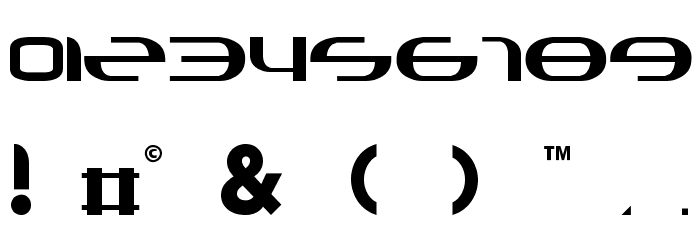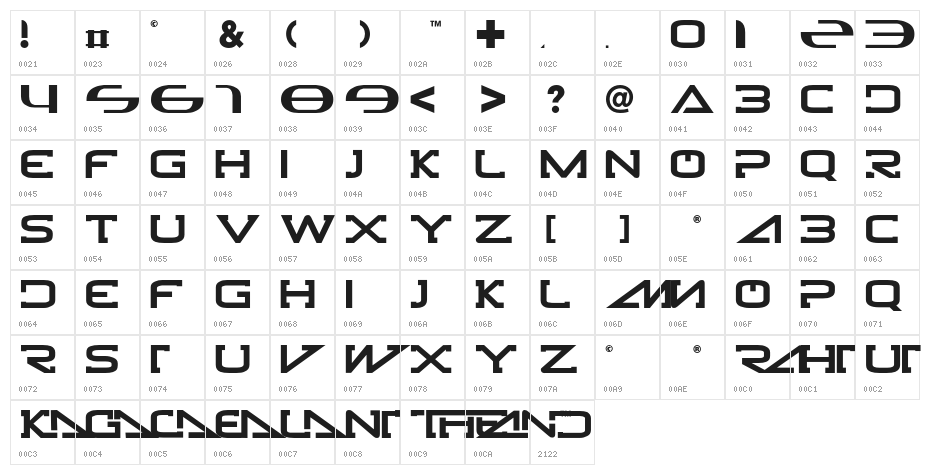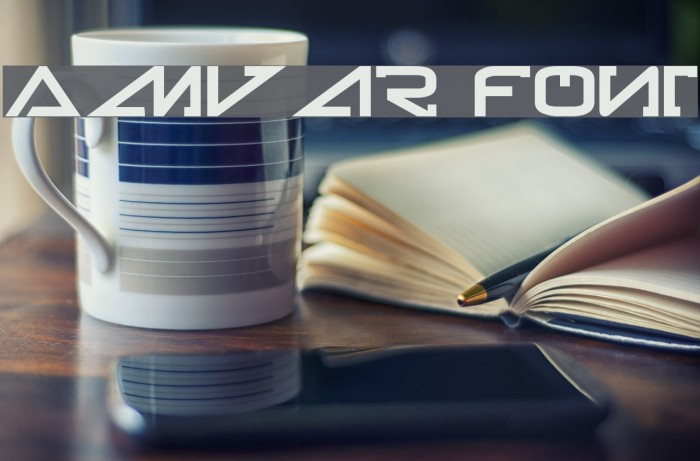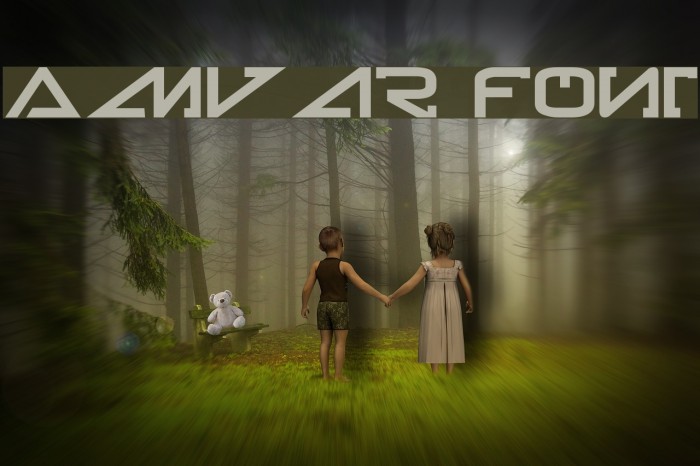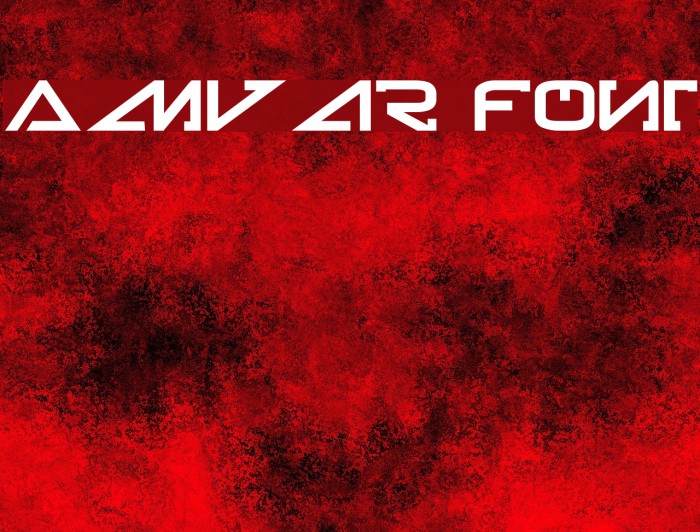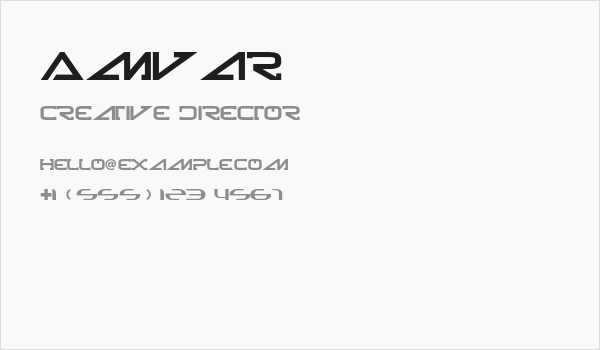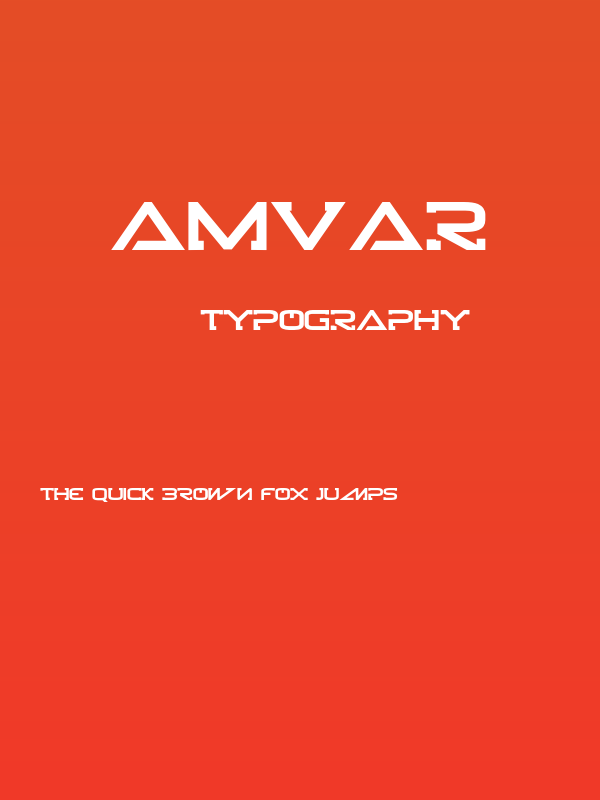
Amvar Font
Amvar Description
This font features a futuristic and geometric design, characterized by its sharp angles and unique cutouts within each letterform. The uppercase letters are bold and striking, with a consistent height and width that create a uniform appearance. The lowercase letters maintain the same geometric style, offering a cohesive look across different text cases. Numbers are designed with the same angular and modern aesthetic, ensuring readability while maintaining the font's distinctive style. Special characters are included, each crafted to match the overall design ethos, making this font versatile for various applications.